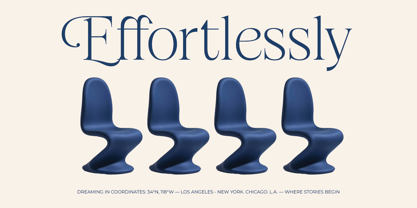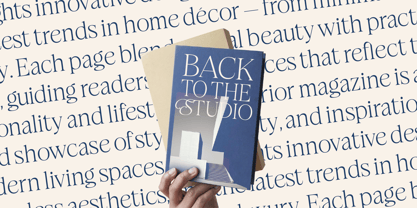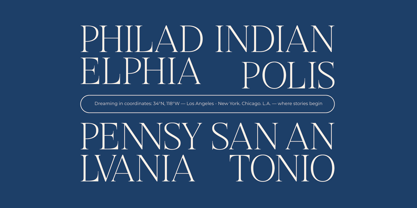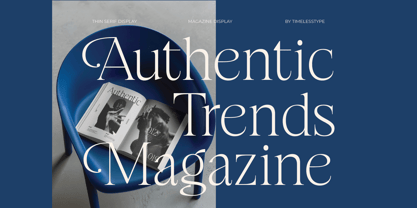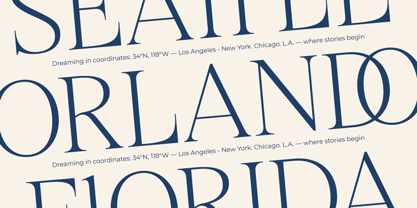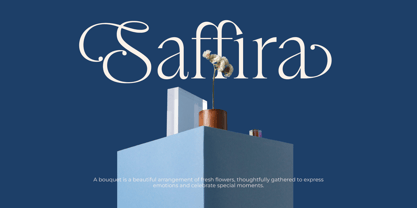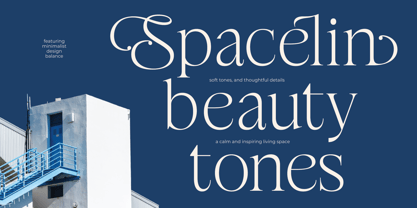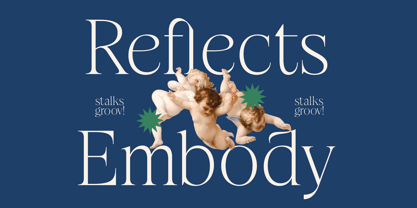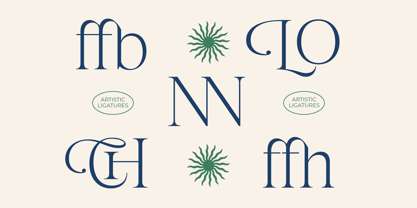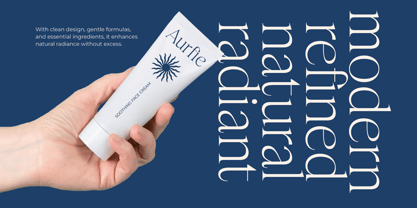
Stokeda
by Timelesstype Studio
The Stokeda Font Family was designed by Heru Utama Putra and published by Timelesstype Studio. Stokeda contains 2 styles and family package options.
Stokeda - Thin Serif Display Font, Stokeda is a thin serif display font that merges classic elegance with contemporary design. Featuring 22 ligatures and 60 alternates with a total of 412 glyphs in regular and italic styles, it delivers refined letterforms and graceful curves ideal for editorial layouts, luxury branding, invitations, and packaging. With its delicate contrast and stylish character, Stokeda offers sophistication and timeless beauty for both modern and traditional design projects.